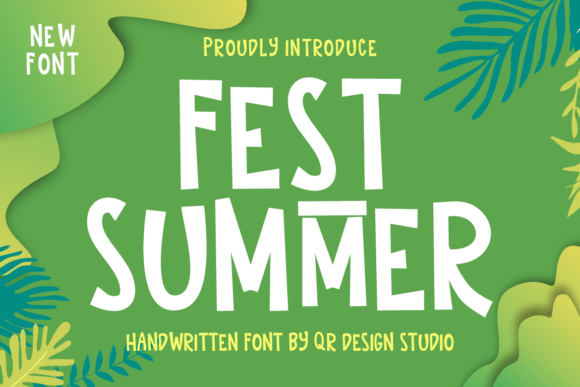
Behold, the Fest Summer Font – Your Gateway to a World of Joyous Expression!
Unleash your inner artist and embark on a typographic adventure with the Fest Summer Font, a captivating display font that radiates boldness and authenticity. This font is a true masterpiece, crafted with meticulous attention to detail, ensuring that every letter, every curve, and every stroke carries the essence of summer's vibrancy and cheer.
Dive into a world of endless possibilities with Fest Summer, a font that seamlessly adapts to a myriad of branding projects. Let your imagination soar as you create logos that command attention, summer-themed designs that exude warmth, and greeting cards that convey heartfelt messages. With Fest Summer as your creative companion, the boundaries of self-expression become limitless.
Experience the versatility of Fest Summer, a font that shines brilliantly in a diverse array of contexts. Whether you seek to craft eye-catching posters that demand notice, social media graphics that spark engagement, or website designs that leave a lasting impression, Fest Summer rises to the challenge with effortless grace. Its bold strokes and playful spirit infuse every project with a touch of summer magic, inviting your audience to bask in the font's infectious charm.
Indulge in the splendor of Fest Summer, a font that captivates with its bold and authentic style. Its carefully crafted characters evoke a sense of nostalgia, transporting you to sun-kissed beaches, laughter-filled gatherings, and carefree summer days. With Fest Summer, your designs will radiate positivity, capturing the essence of summer's carefree spirit, and leaving an indelible mark on all who behold them.
Embrace the Fest Summer Font today and unlock a world of typographic delight. Let your creativity flourish as you explore the endless possibilities that await you with this remarkable font. Its bold and authentic style will elevate your designs to new heights, captivating your audience and leaving them eagerly anticipating your next creation.